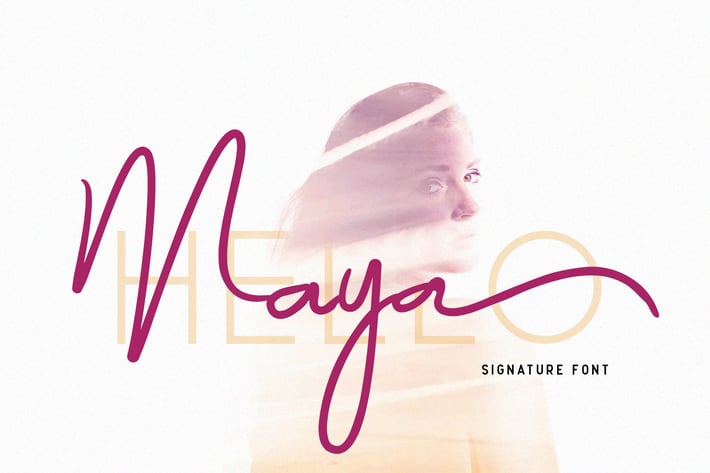
Maya - Luxury Signature Font
Maya - Luxury Signature Font is a contemporary pair of script and san-serif fonts. Its offers beautiful typographic harmony for a diversity of design projects, headlines, branding visual identity, poster, logo, magazines and etc. Maya also includes full set of uppercase and lowercase letters, multilingual symbols, numerals, punctuation.